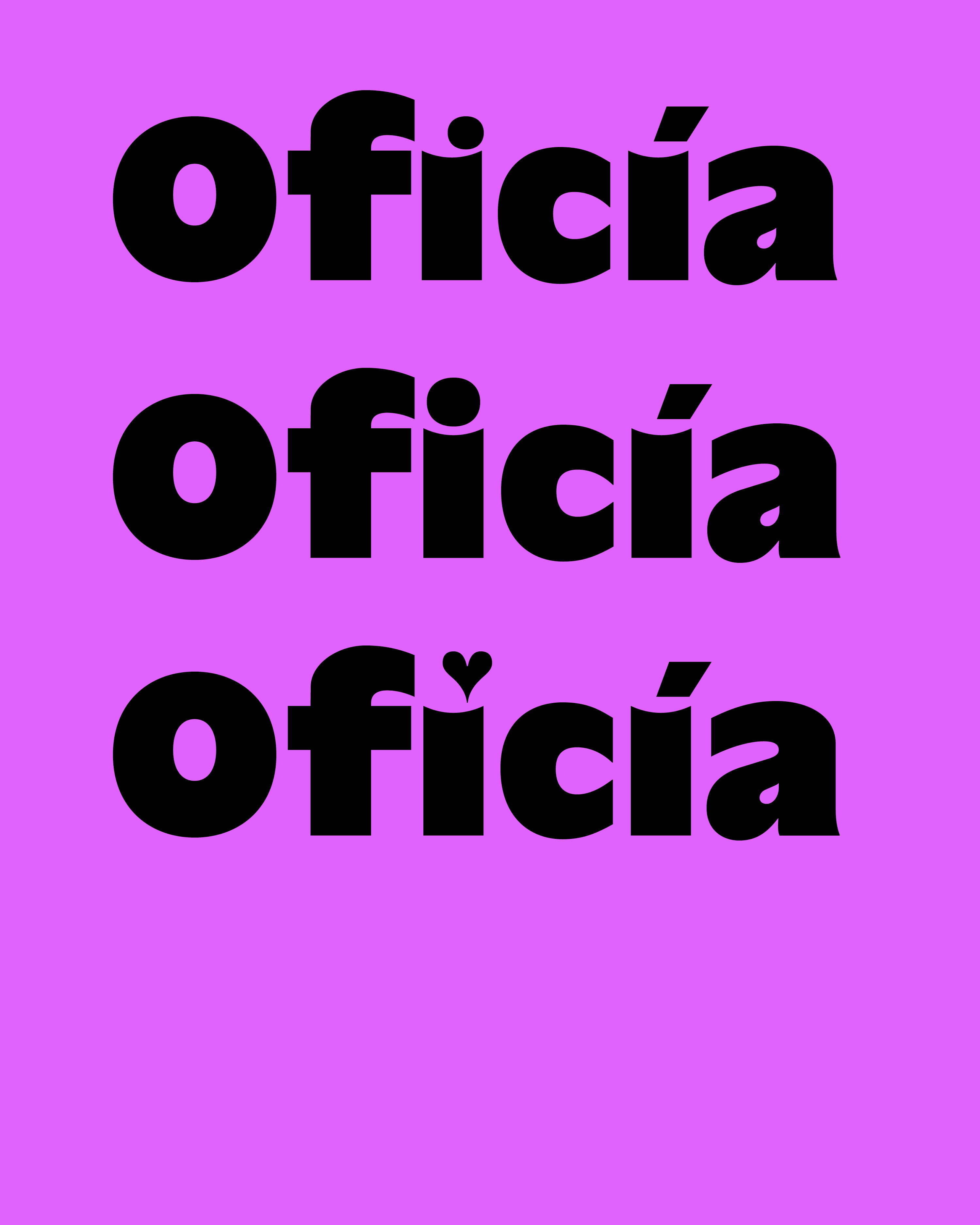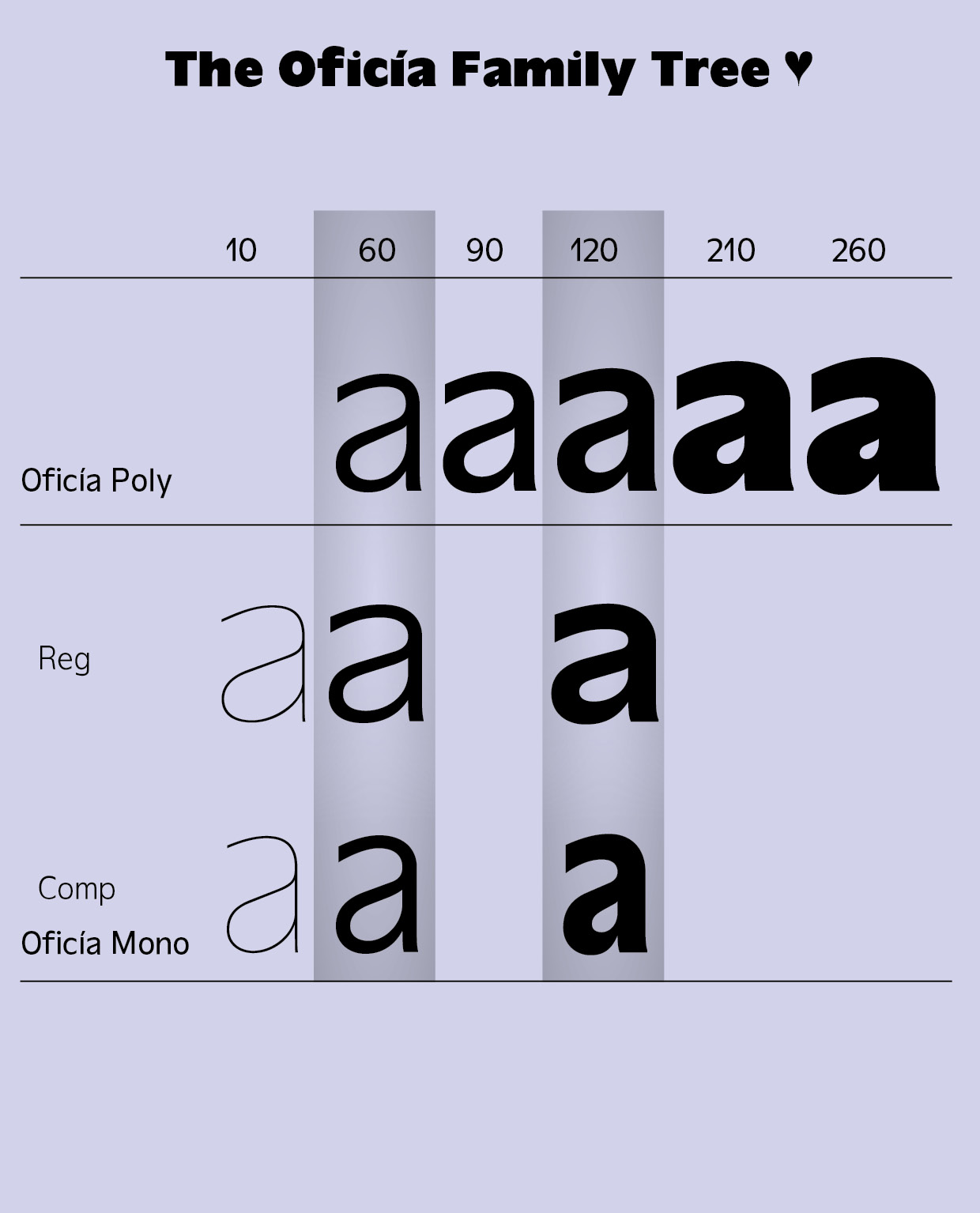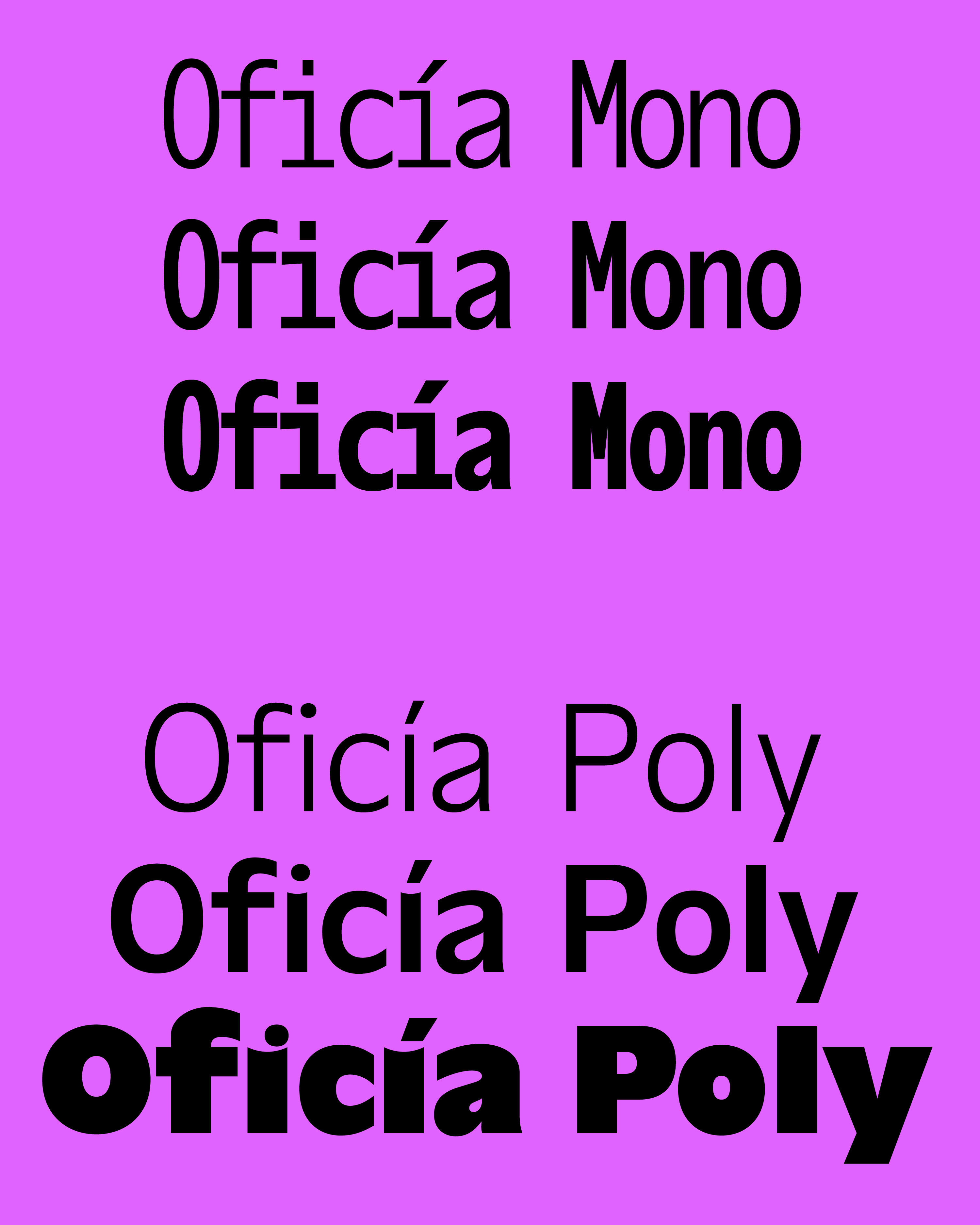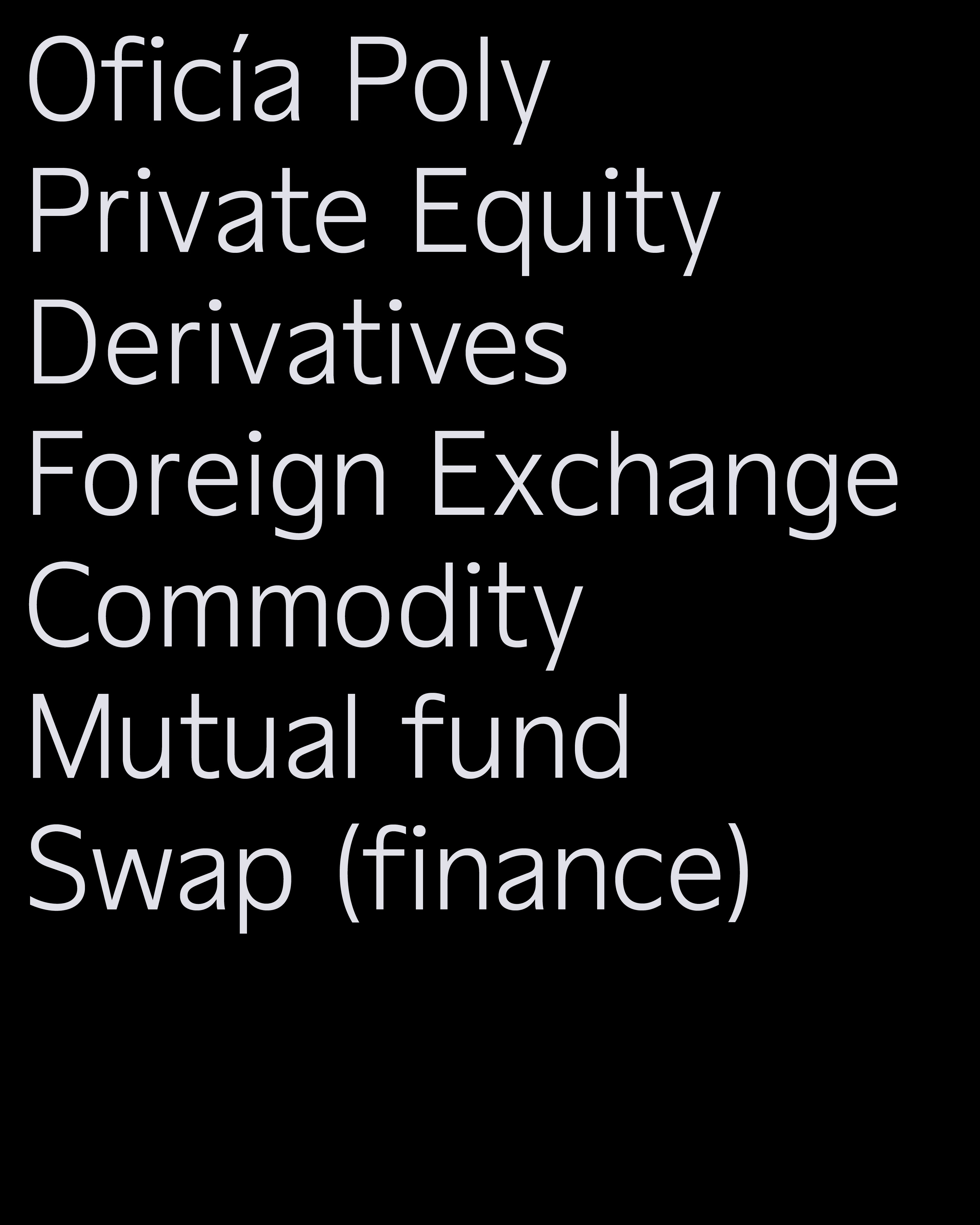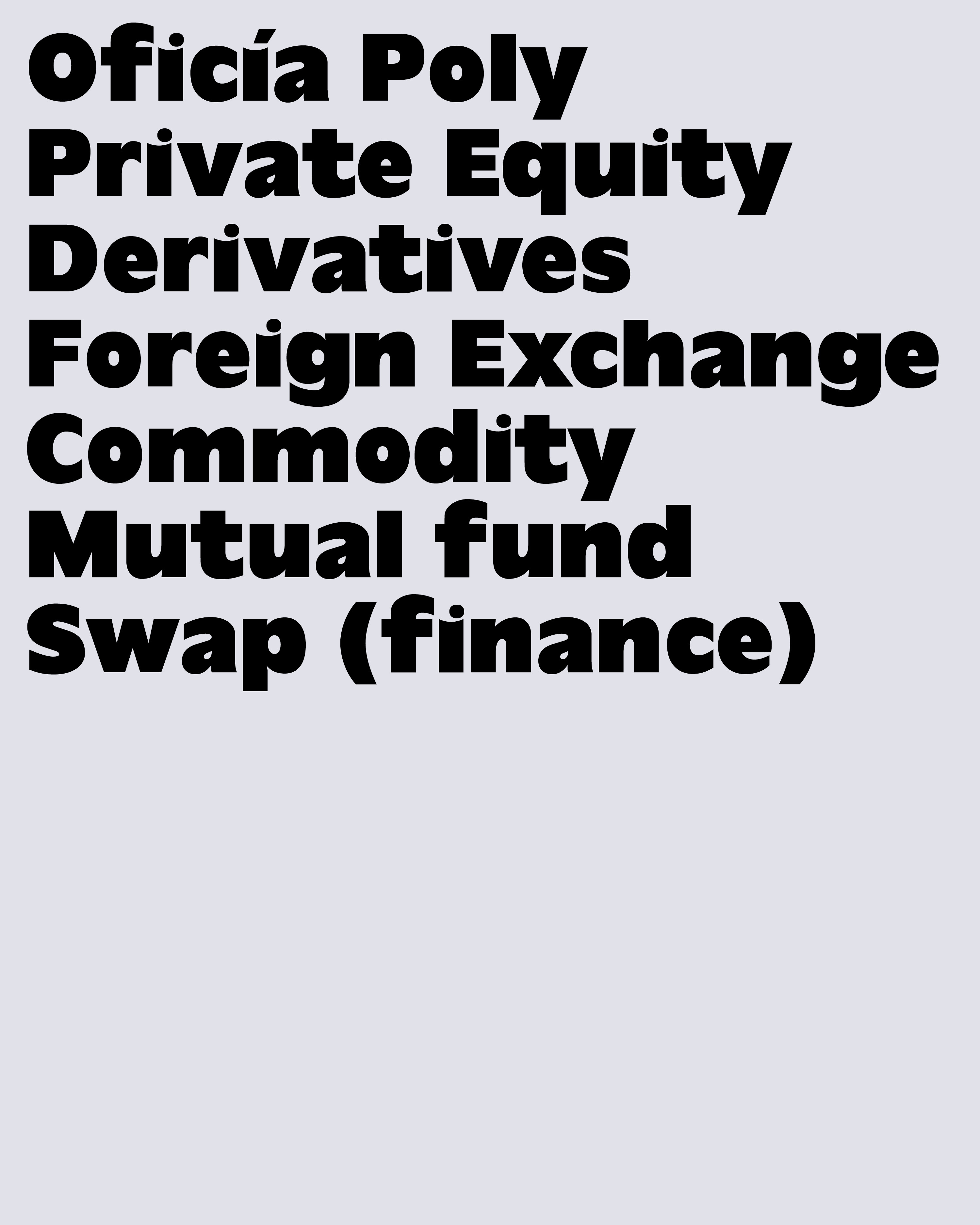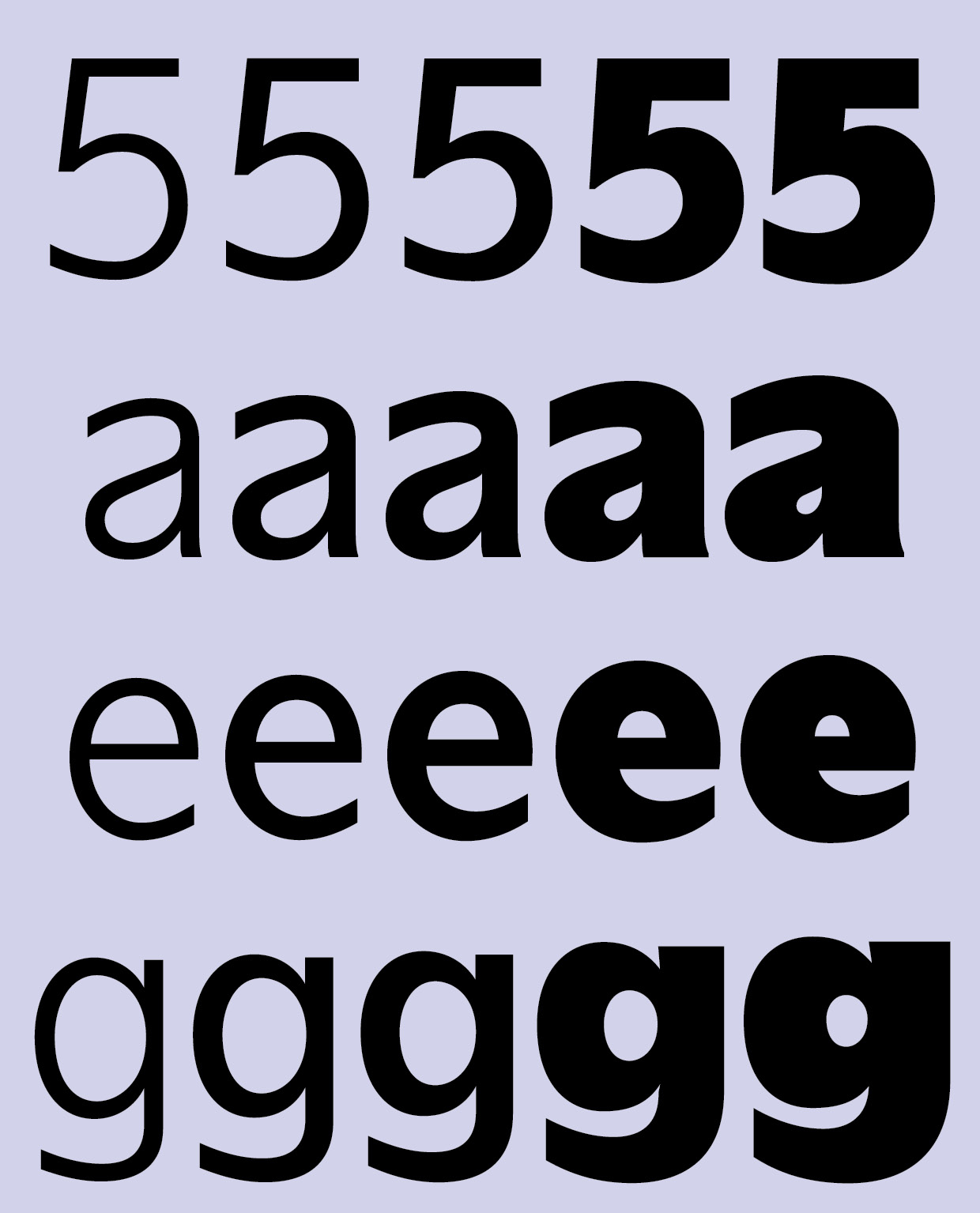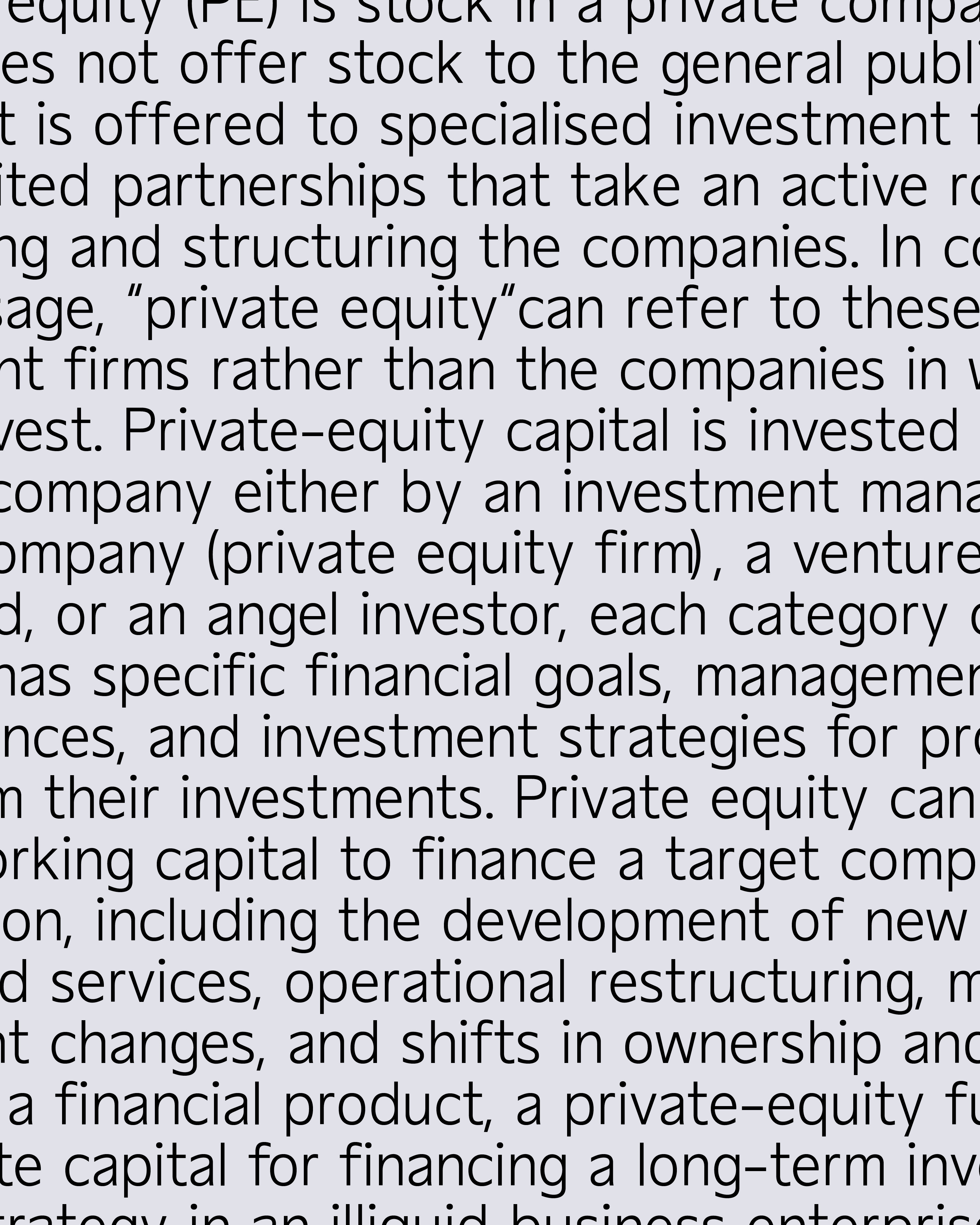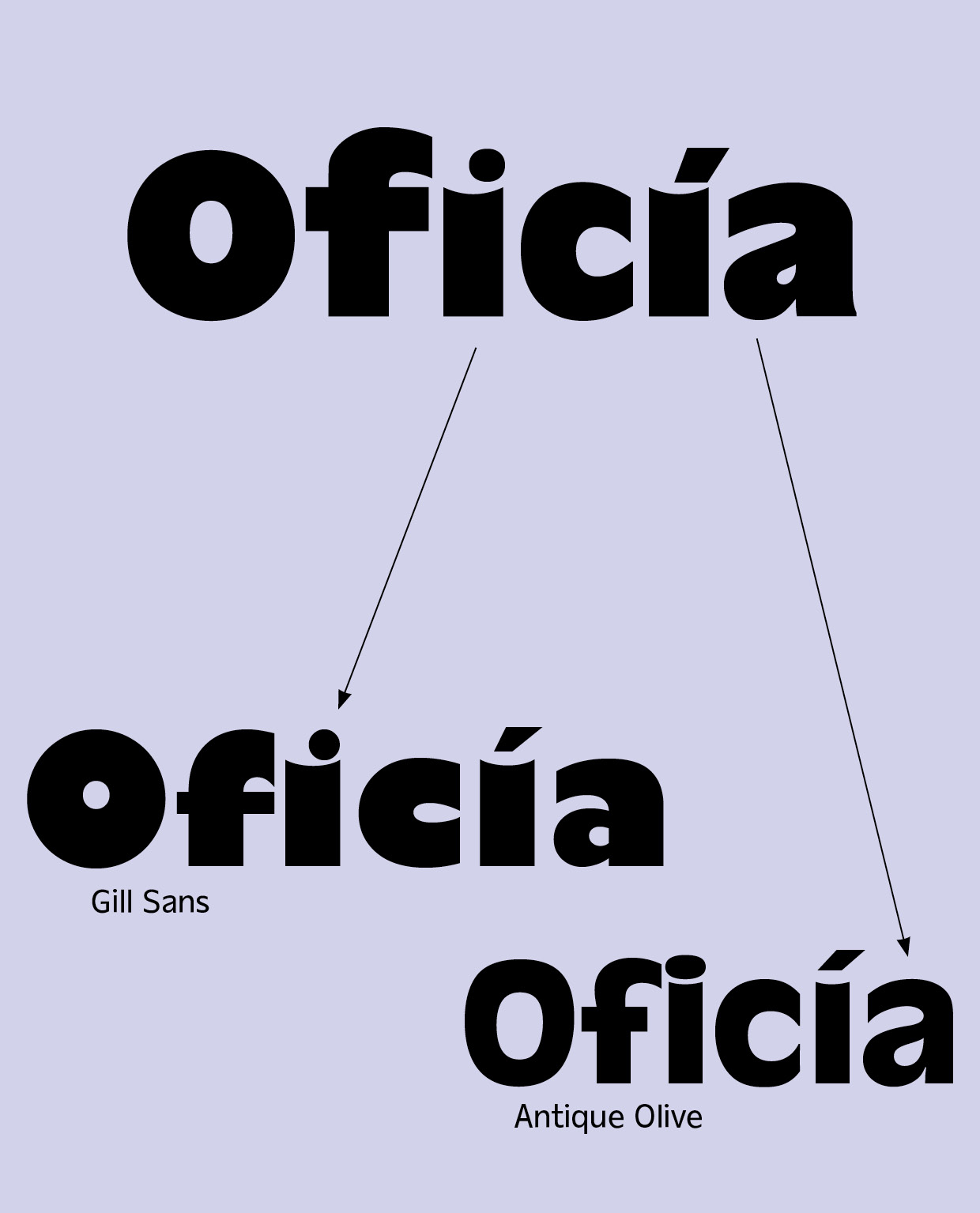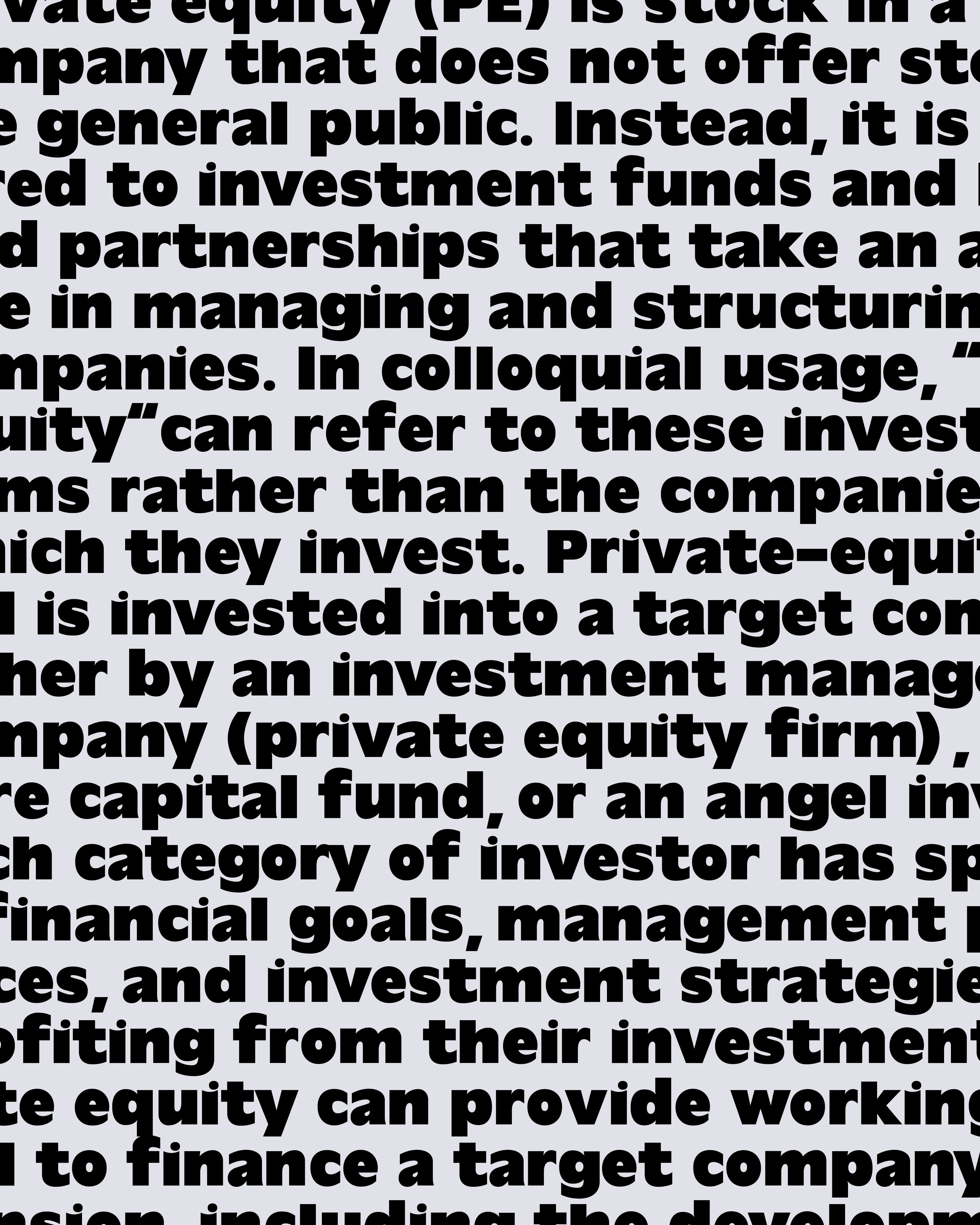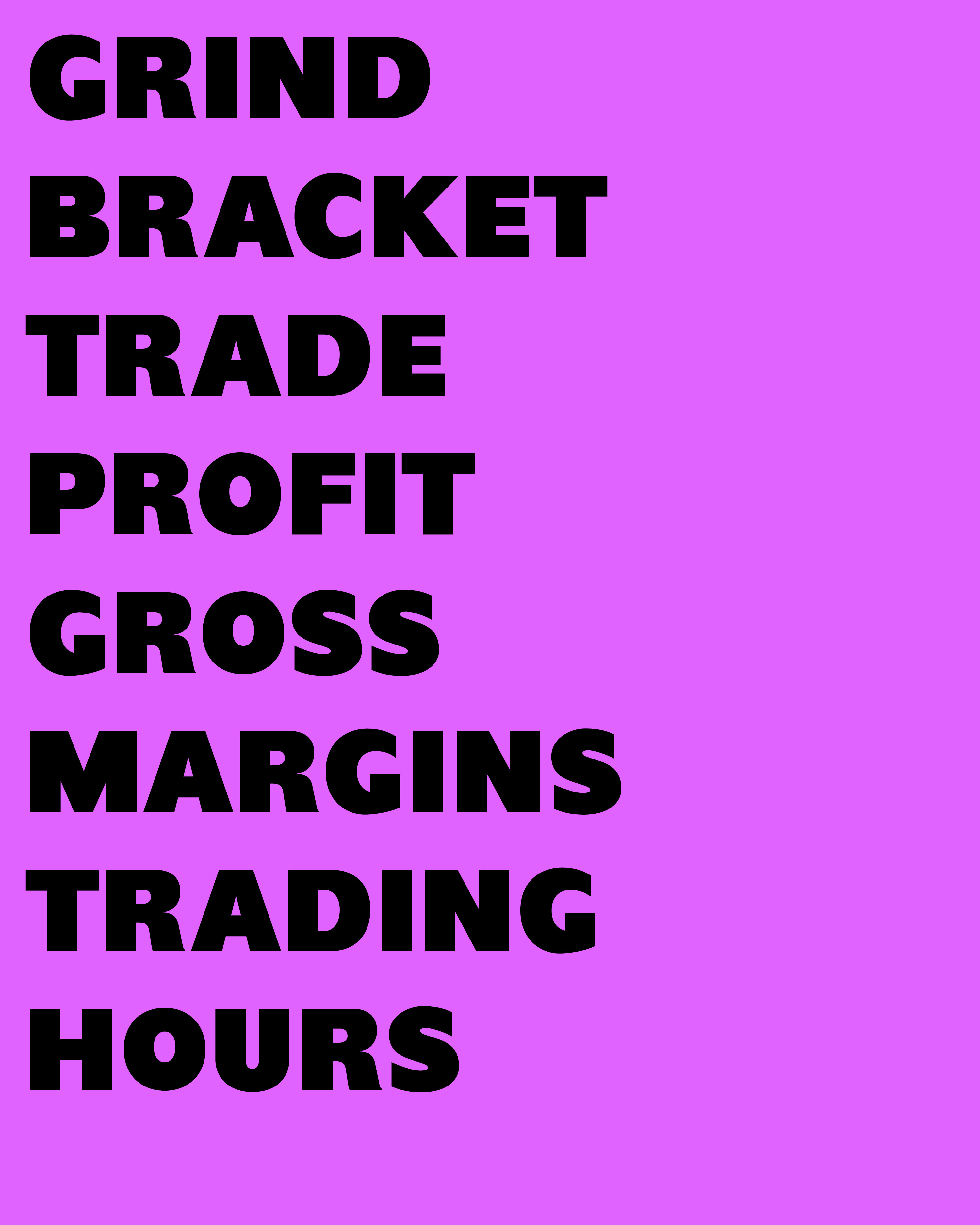
Oficía POLY BETA
Oficía also has an After Work Life!
Technical Note: My two biggest influences for Oficía Poly were Antique Olive (love) and Gill Sans — the ladder is really fun, but her Designer is more than problematic (if u don't know, go to his wikipedia page). So i wanted to create a good alternative for people (me) who don't want to live without that funky i.
Access All Alternates
i
Stylistic Set 1
i
Stylistic Set 3
i
j
Ä
ä
ö
ü
ÿ
ij
ẅ
Stylistic Set 4
t